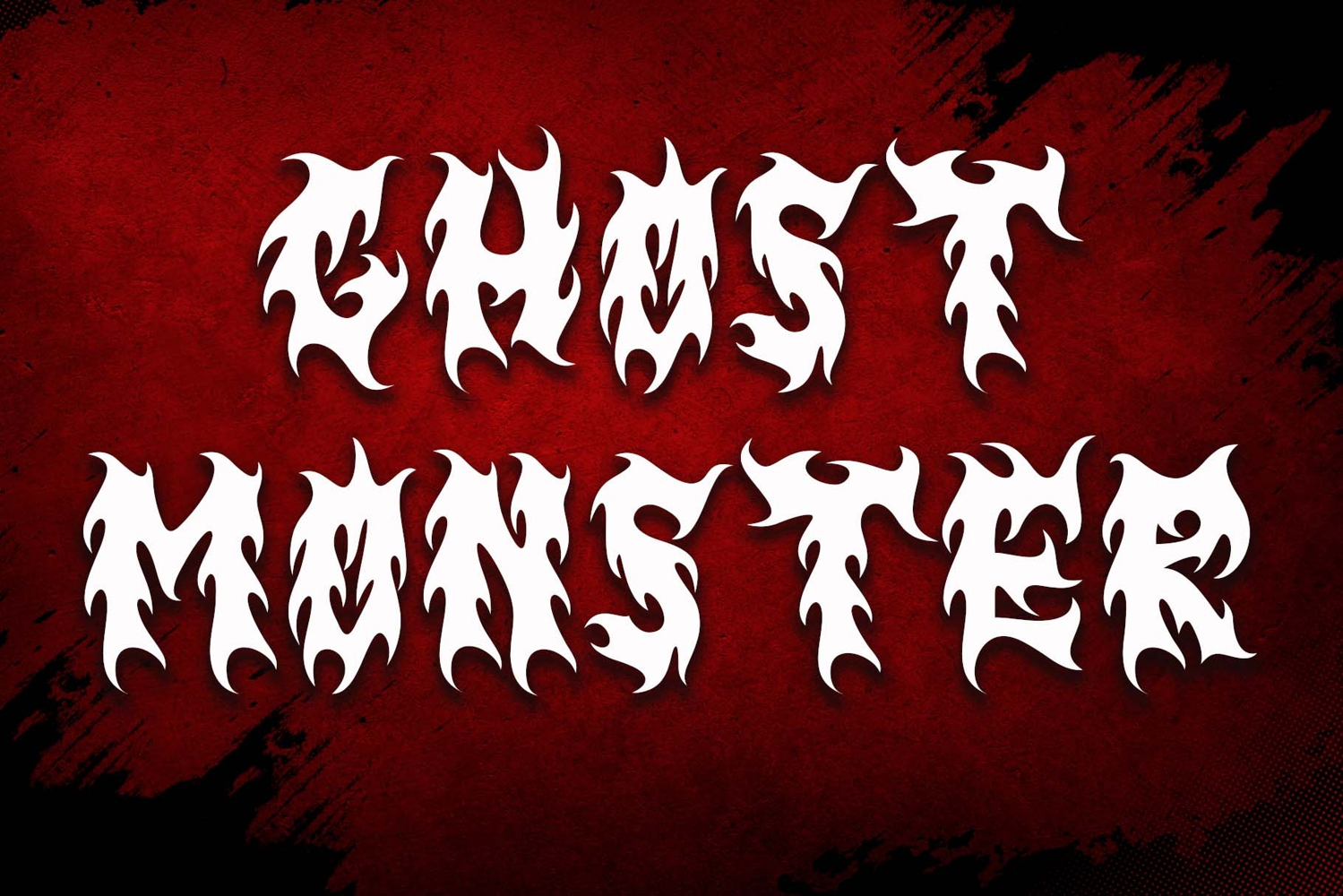
Black Flames
"Black Flames" is a unique and elegant font with a fiery flame shape. It features uppercase and lowercase letters, numerals, punctuation, and multilingual support. It's perfect for Halloween, horror movie titles, horror book titles, comics, banners, posters, prints, branding, stickers, logos, and more.